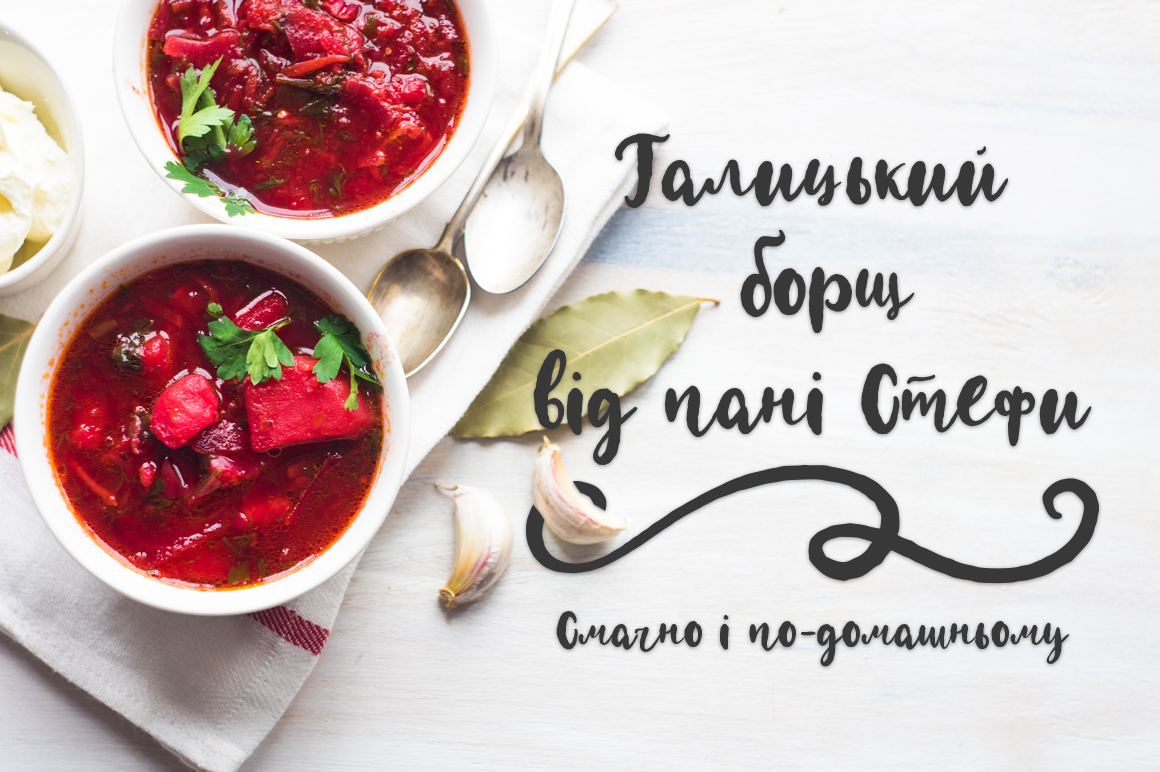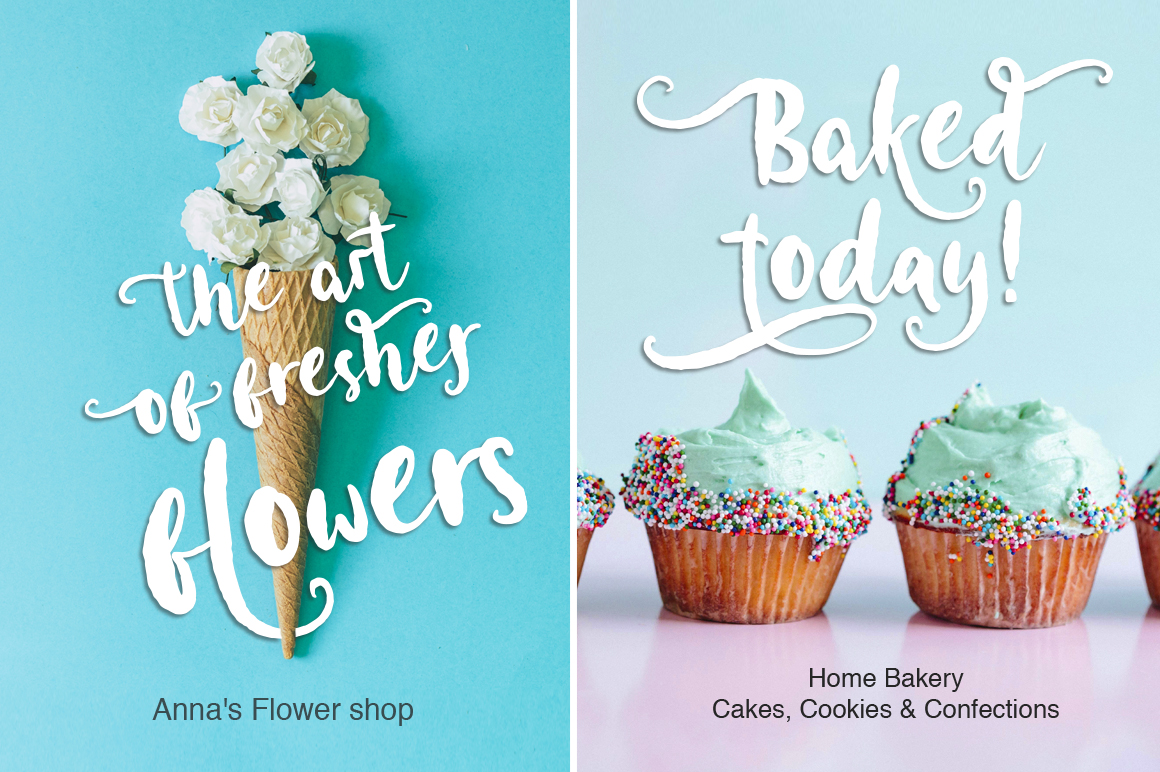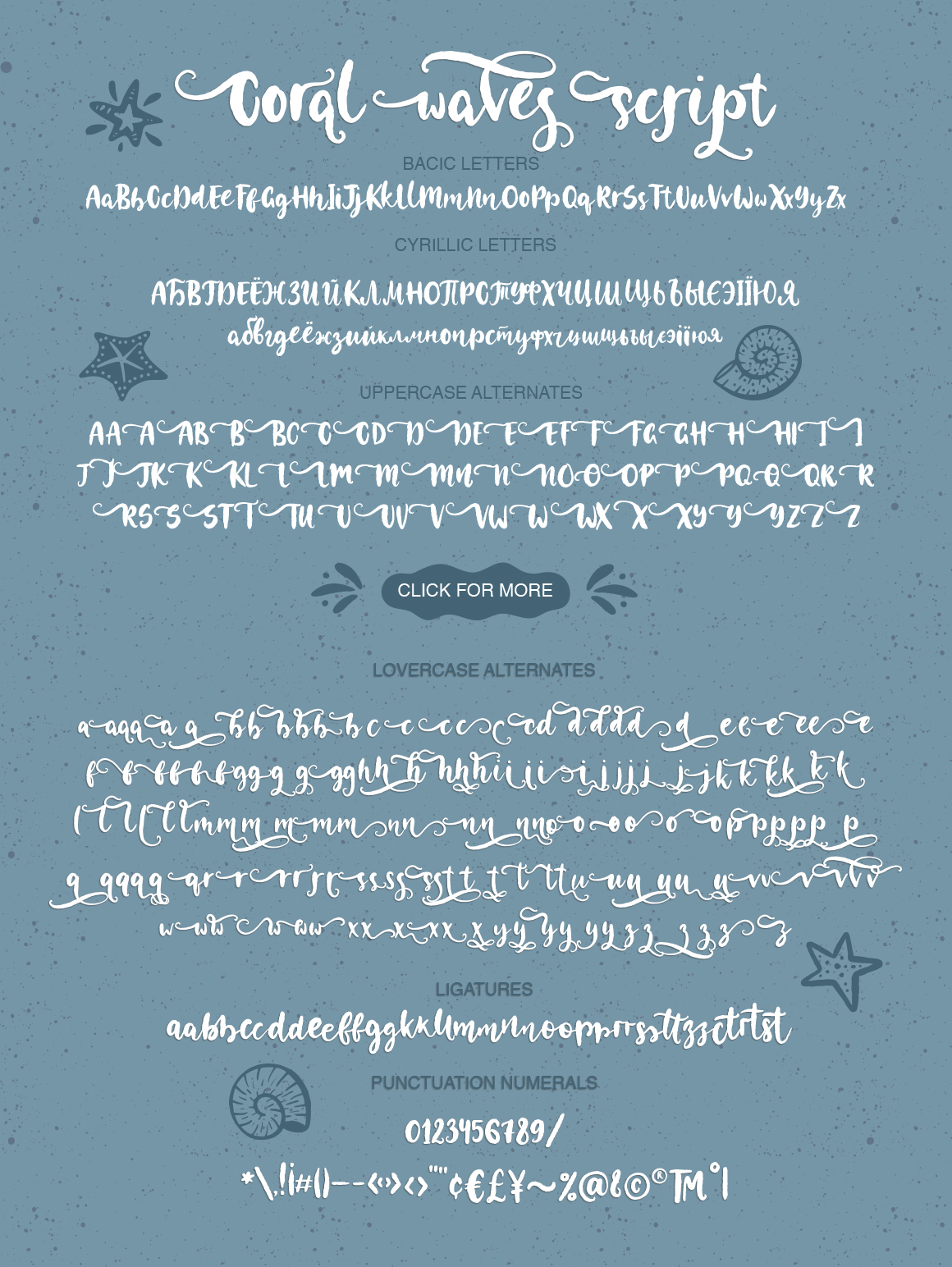
Discovering the Perfect Wave of Creativity
There’s nothing quite like the thrill of stumbling upon a font that perfectly captures the essence of a project. For designers, this moment is pure magic – a symphony of typography that elevates the entire creative process. It’s in these moments that the perfect font can make all the difference, and for us, that font is the Coral Waves Font.
Handcrafted with love, Coral Waves Font is a carefree, friendly font that’s perfect for designers looking to add a touch of whimsy to their projects. With its extensive range of stylistic alternates and an impressive array of extras, this font pack is a treasure trove of creative possibilities.
Coral Waves Font Key Features
- Unique Characteristics: Coral Waves Font features a unique, hand-drawn design with a wavy, organic feel, giving it a distinctive and eye-catching appearance.
- Style Options: The font includes multiple style options, including regular, bold, italic, and bold italic, allowing designers to add variety and emphasis to their text.
- Language Support: Coral Waves Font supports a wide range of languages, including English, Spanish, French, German, Italian, and many more, making it a versatile choice for global design projects.
Coral Waves Font Review
Coral Waves Font is a beautiful, hand-drawn font that can add a touch of elegance to any design project. ✨ I love the flowing curves and soft lines that give it a calming, ocean-inspired feel. The font is perfect for creating invitations, posters, or any other design where you want to evoke a sense of serenity and relaxation.
- The font’s irregularities give it a unique, handmade feel that sets it apart from more traditional fonts.
- The font is highly legible, even at smaller sizes, making it perfect for body text or captions.
However, there are a few limitations to consider. ⚠️ The font is not ideal for headlines or titles, as it can be difficult to read at larger sizes. Additionally, the font’s soft lines can make it prone to pixelation or distortion when used in digital applications.
Overall, I think Coral Waves Font is a lovely addition to any designer’s toolkit. While it may not be suitable for every project, it’s a great choice for designs that require a touch of whimsy and personality. With a little creative license, Coral Waves Font can help you create truly stunning designs that leave a lasting impression.
Tips for Getting the Most Out of Coral Waves Font
Use Coral Waves font for headings and titles to add a touch of elegance and sophistication to your designs.
Combine Coral Waves font with other fonts to create a unique and eye-catching typography.
Experiment with different font sizes and colors to achieve the desired visual effect.
Coral Waves font is perfect for:
- Brand logos and identity designs.
- Editorial and publishing designs.
- Wedding and event invitations.
Alternatives to Coral Waves Font
Pacifico Font is a beautiful, elegant script font that is perfect for creating a relaxing and calming atmosphere. It is ideal for use in branding, invitations, and other materials where a touch of sophistication is desired.
Compared to Coral Waves Font, Pacifico Font has a more refined and delicate feel, making it suitable for applications where a more subtle and elegant look is required. Pacifico Font also has a more limited set of characters, making it more suitable for use in specific contexts where a limited character set is acceptable.
Q: Does Coral Waves support Unicode characters?
Yes, Coral Waves supports a wide range of Unicode characters, including Latin, Cyrillic, and Greek scripts. This allows for language support in multiple languages and scripts.